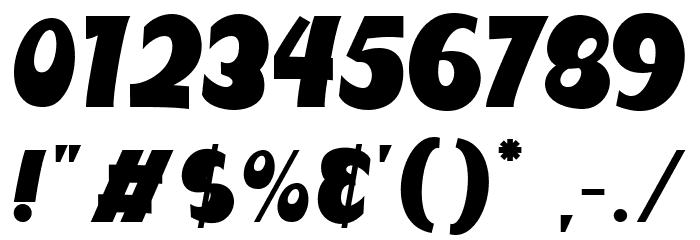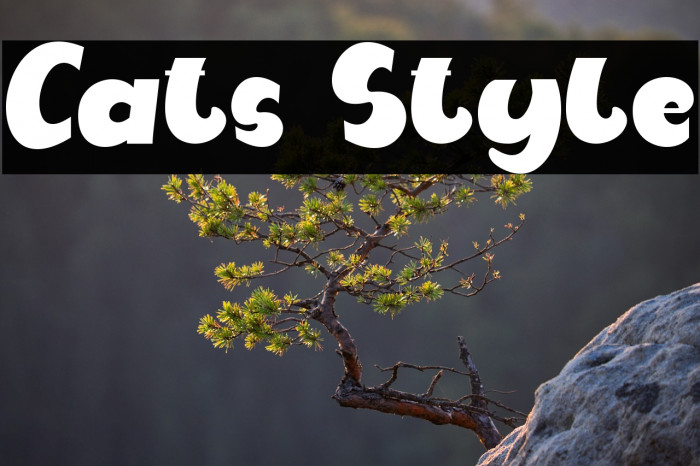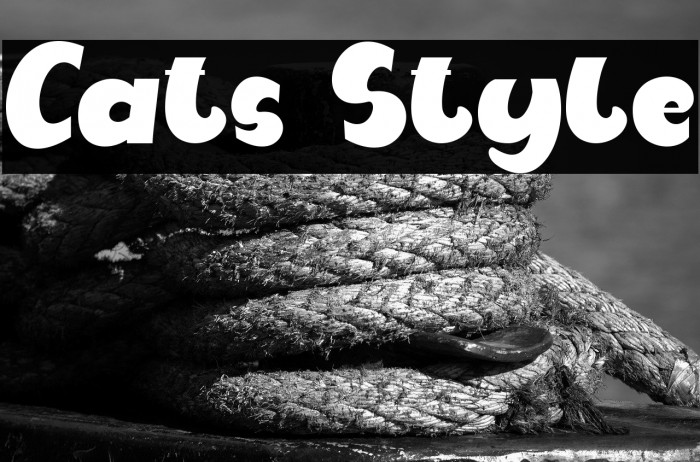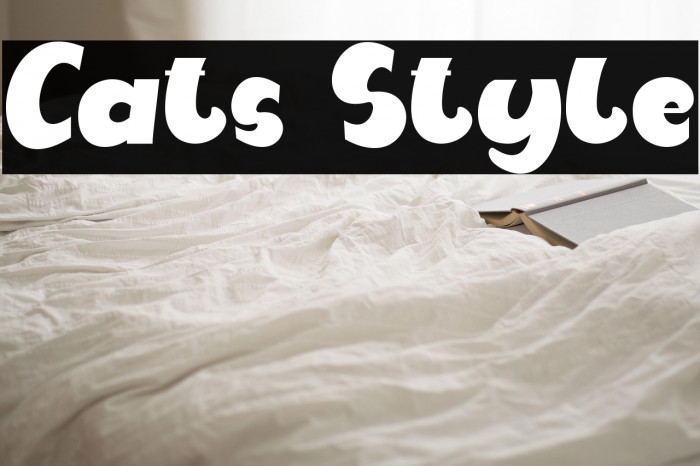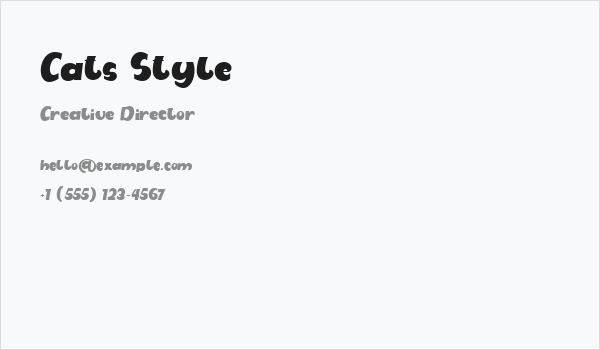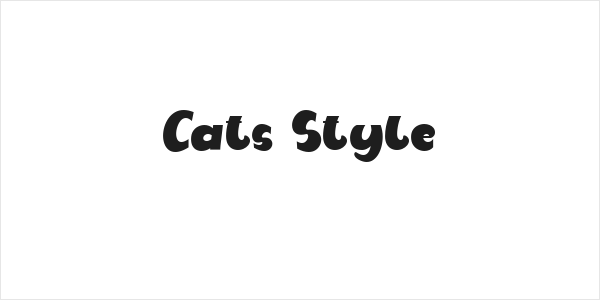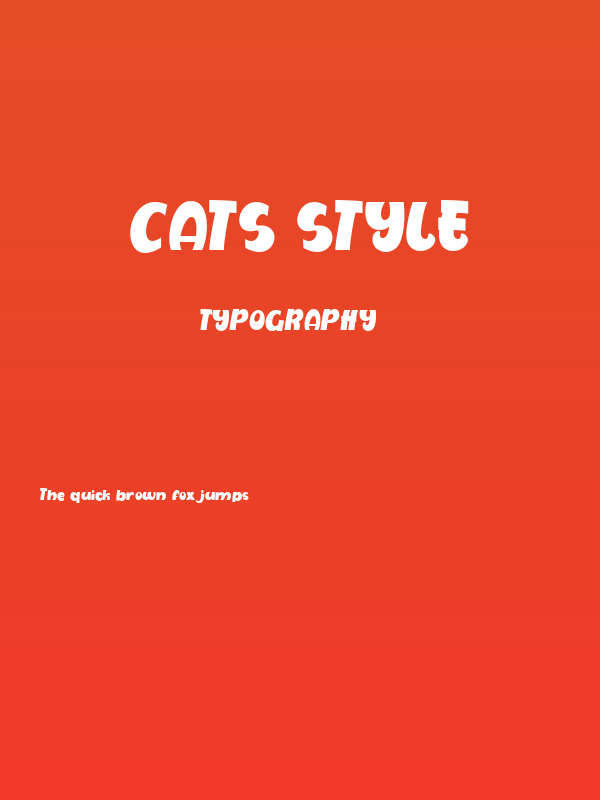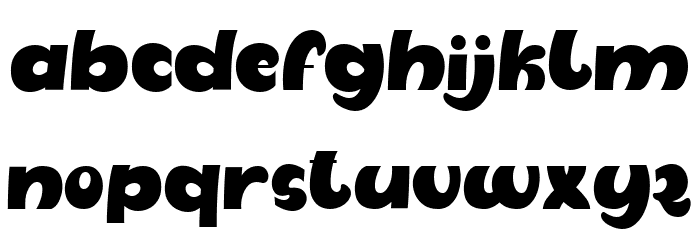
Cats Style Font
Cats Style Description
This playful and bold font features a unique, whimsical style with rounded edges and a slightly retro feel. The characters are thick and have a consistent stroke width, giving them a strong presence. The uppercase and lowercase letters maintain a cohesive look, with some letters having distinctive curves and angles that add to the font's charm. The numbers and special characters are equally bold, ensuring readability and consistency across different uses. This font's quirky and fun design makes it ideal for creative projects that require a touch of personality.
| Overall Style | Playful, Retro |
| Proposed Projects | Ideal for children's books, playful branding, posters, and creative advertisements. |